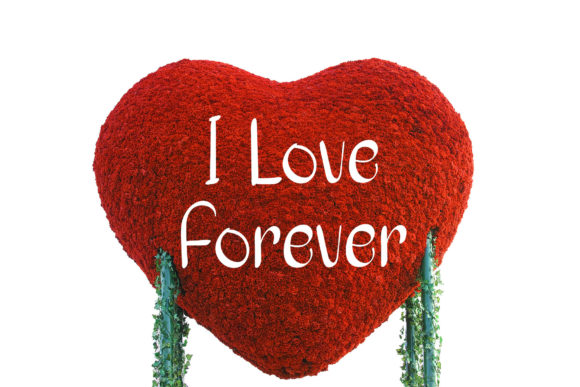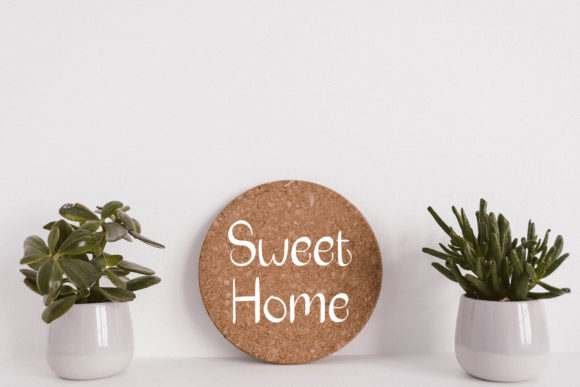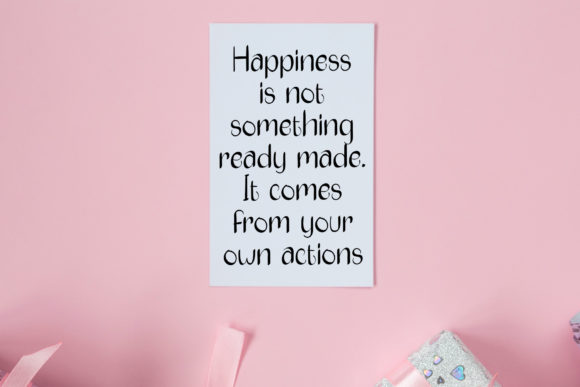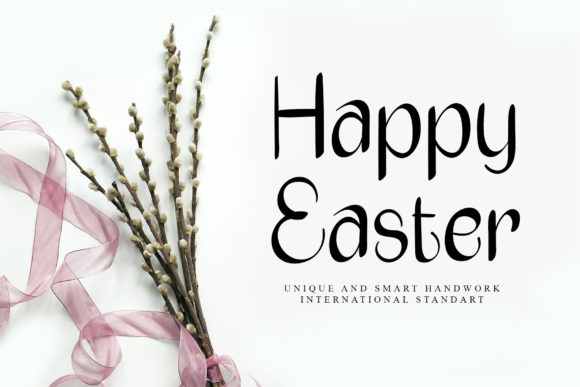
Education Background Font: Elevate Your Designs with a Unique and Elegant Touch
Are you a designer or crafter looking for a font that can add a personal touch to your creations? Look no further than the Education Background Font. This beautiful, handwritten font is perfect for a variety of design projects, from wedding invitations and greeting cards to billboards, logos, and business cards. With its natural, hand-made feel and varied baseline, Education Background Font is sure to elevate your designs and set them apart from the rest.
The Characteristics of Education Background Font
So, what makes Education Background Font so special? Here are just a few of its key characteristics:
- Handwritten touch: Education Background Font features a natural, hand-made touch that gives your designs a personal and unique feel.
- Varied baseline: The font’s varied baseline adds to its hand-made feel, creating a sense of movement and fluidity.
- Elegant and sophisticated: Despite its handwritten nature, Education Background Font is surprisingly elegant and sophisticated, making it perfect for a wide range of design projects.
- Versatile: Education Background Font can be used for a variety of design projects, from wedding invitations and greeting cards to billboards, logos, and business cards.
Using Education Background Font in Your Designs
Education Background Font is incredibly versatile, and can be used in a wide range of design projects. Here are just a few ideas to get you started:
- Wedding invitations: Add a personal touch to your wedding invitations with Education Background Font. Its elegant and sophisticated feel makes it perfect for formal wedding designs.
- Greeting cards: Education Background Font is also perfect for greeting cards, adding a personal and heartfelt touch to your designs.
- Billboards: Make a statement with Education Background Font on your billboards. Its bold and eye-catching feel is sure to grab attention.
- Logos: Use Education Background Font to create a unique and memorable logo for your business. Its elegant and sophisticated feel makes it perfect for professional designs.
- Business cards: Add a personal touch to your business cards with Education Background Font. Its natural, hand-made feel makes it perfect for networking and professional designs.
Tips for Getting the Most Out of Education Background Font
Here are a few tips for getting the most out of Education Background Font:
- Experiment with different sizes: Education Background Font looks great in a variety of sizes, from small and delicate to large and bold. Experiment with different sizes to find the one that works best for your design.
- Pair with other fonts: Education Background Font pairs well with a variety of other fonts. Try pairing it with a bold, sans-serif font for a striking contrast.
- Use in combination with images: Education Background Font looks great in combination with images. Try using it to add a personal touch to your image captions or quotes.
Education Background Font is a unique and elegant font that can add a personal touch to your designs. With its natural, hand-made feel and varied baseline, it’s perfect for a wide range of design projects, from wedding invitations and greeting cards to billboards, logos, and business cards. Whether you’re a designer or crafter, Education Background Font is sure to elevate your designs and set them apart from the rest.